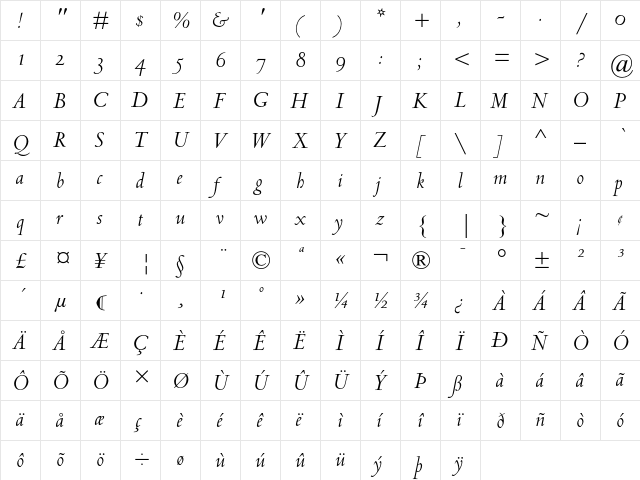
Centaur MT Italic Oldstyle Figures Font Preview
Centaur MT Italic Oldstyle Figures
Design Context for Centaur MT Typeface
Centaur MT brings classic typographic sensibility to the table — its serifs and measured letterforms reflect centuries of print heritage. The dynamic lean of this cut emphasises speed and emphasis in any layout.
Pro Tip: Use Centaur MT for editorial body copy and considered headline work. Pair with a neutral sans for UI elements or captions to create a classic hierarchy.